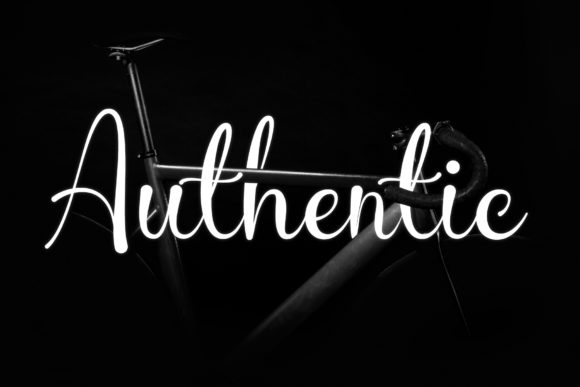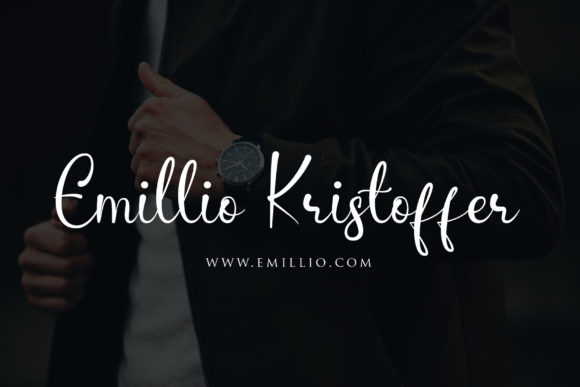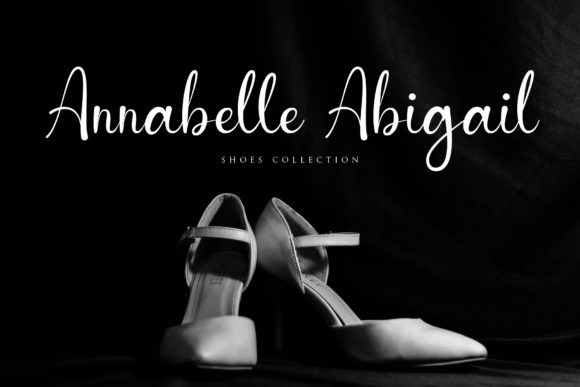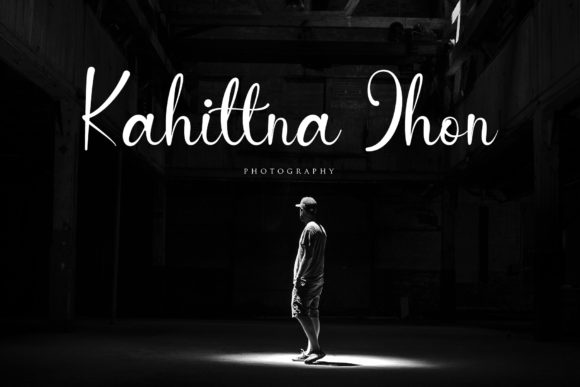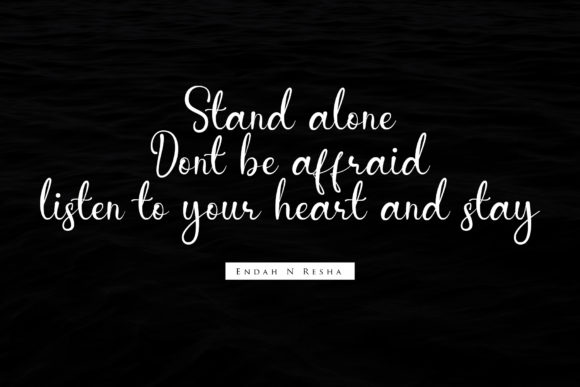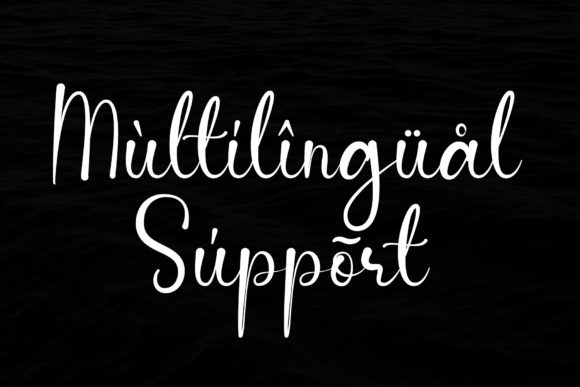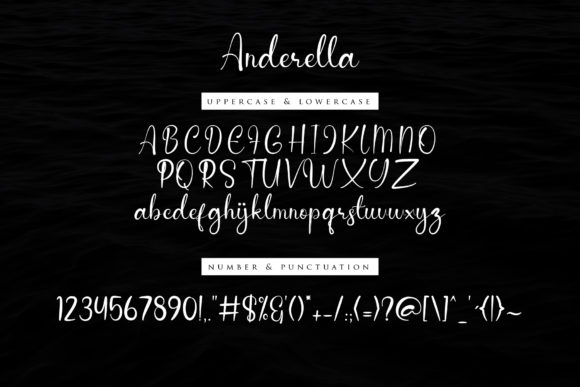
Anderella Font
About Anderella Font
Anderella is a beautiful and bold handwritten font with an organic feel. Get inspired by its bold swashes, and turn any design project into a stunner!